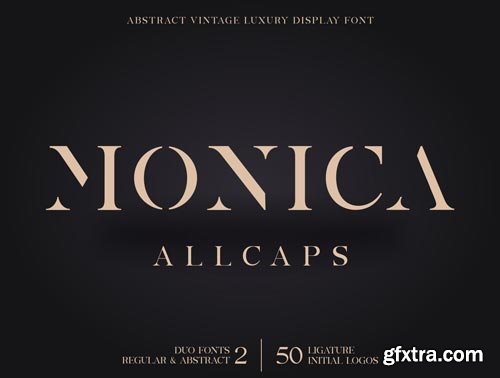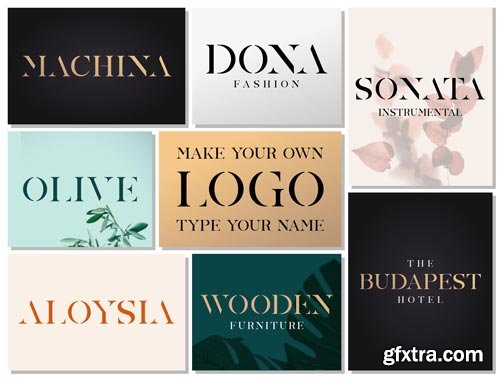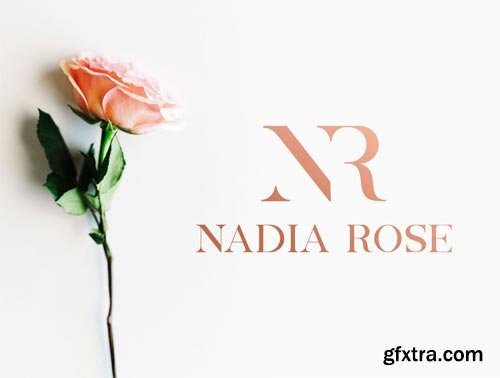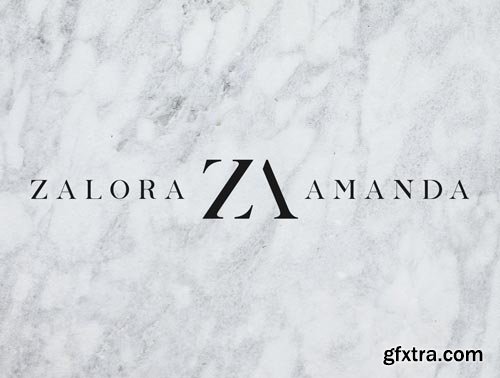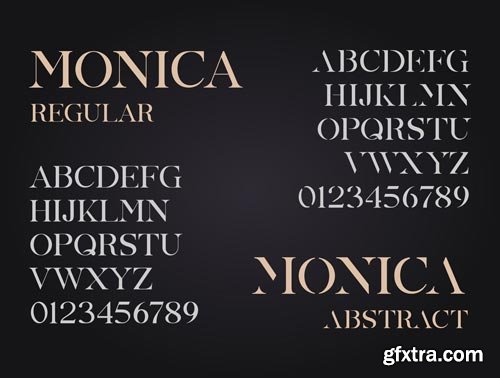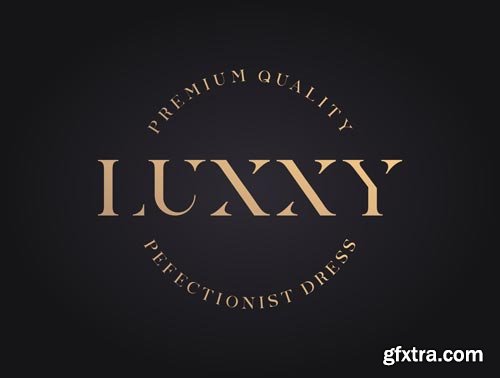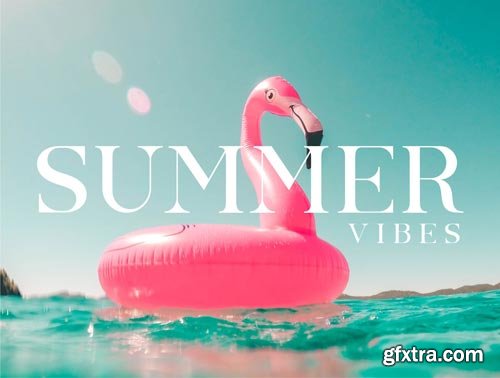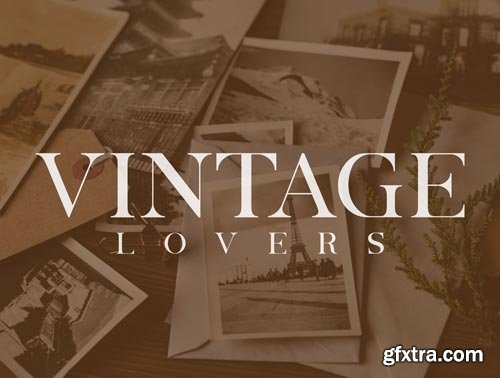
Monica Allcaps Regular and Monica Allcaps Abstract with a stencil appearance. This font is great for creating desired projects such as logos, posters, headlines, fashion and more. Monica Allcaps is an "All Capitals" typeface and has a ligature style that can be used for the initial logo. I hope you can make your own best logo.